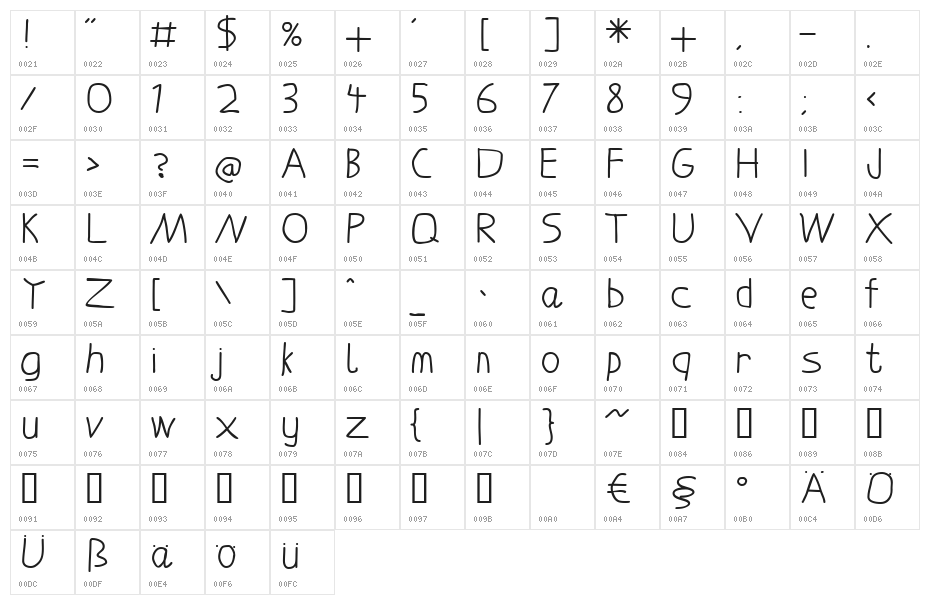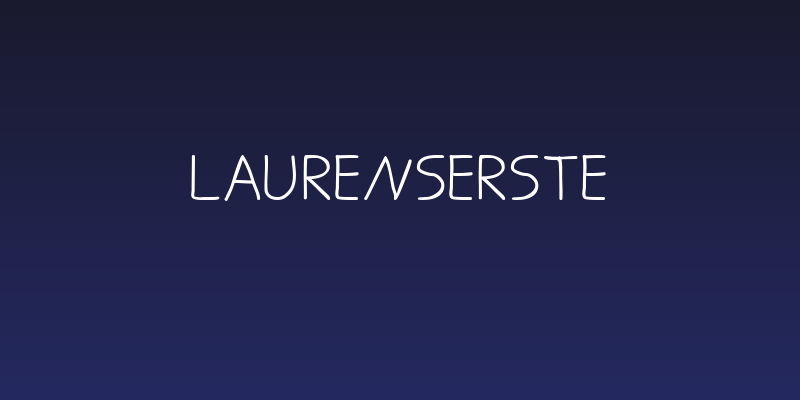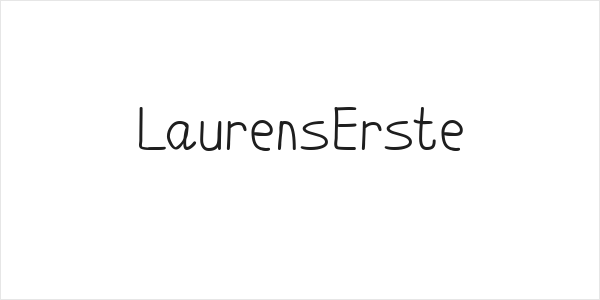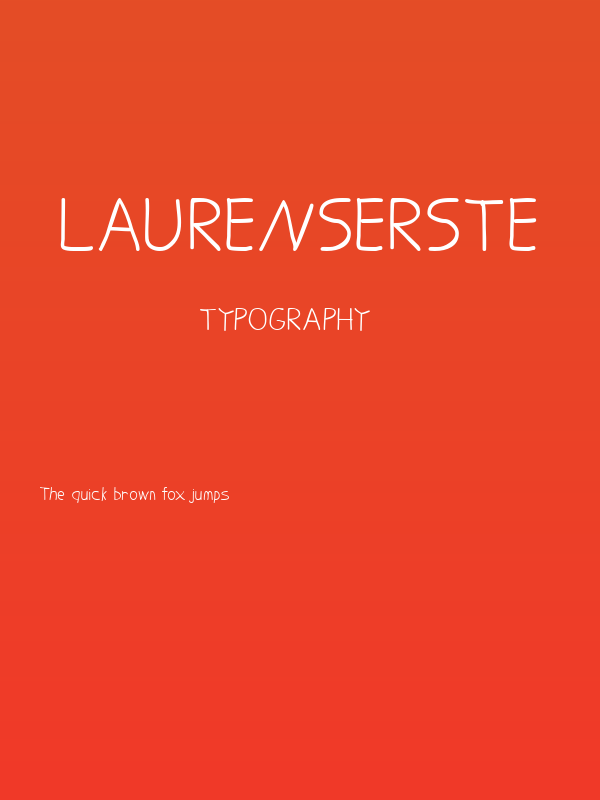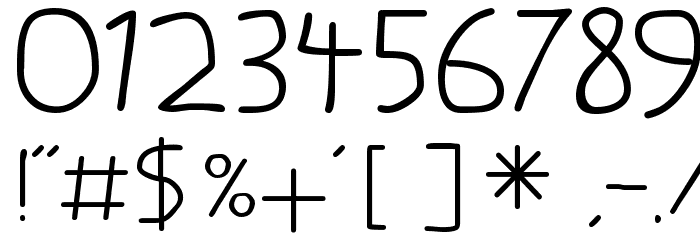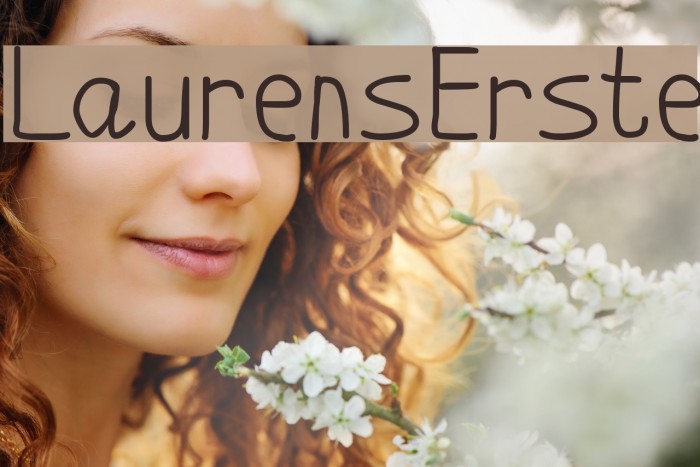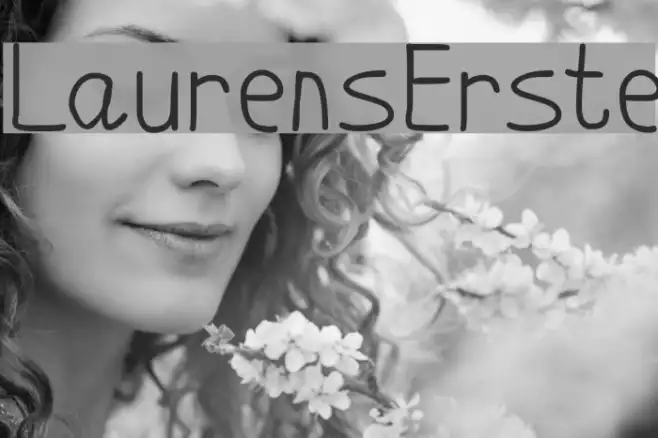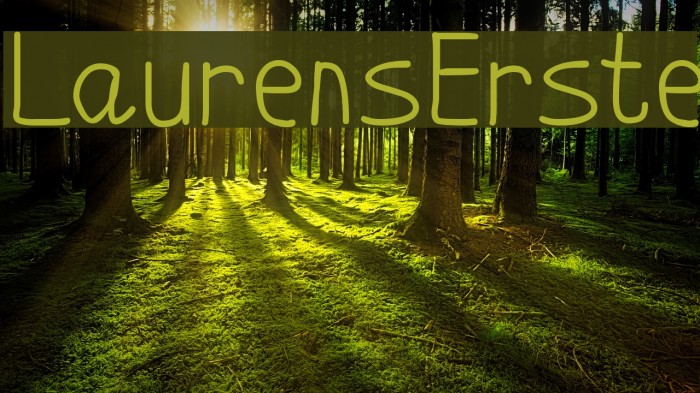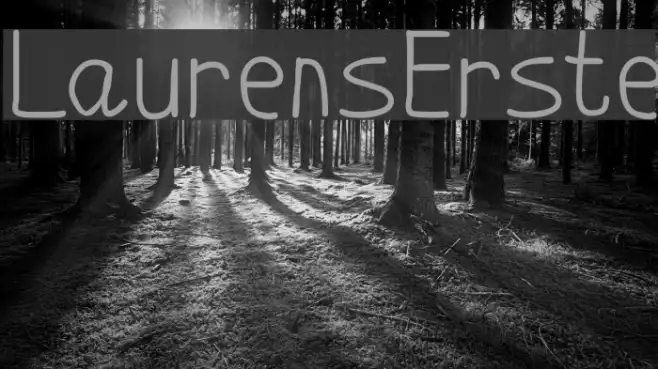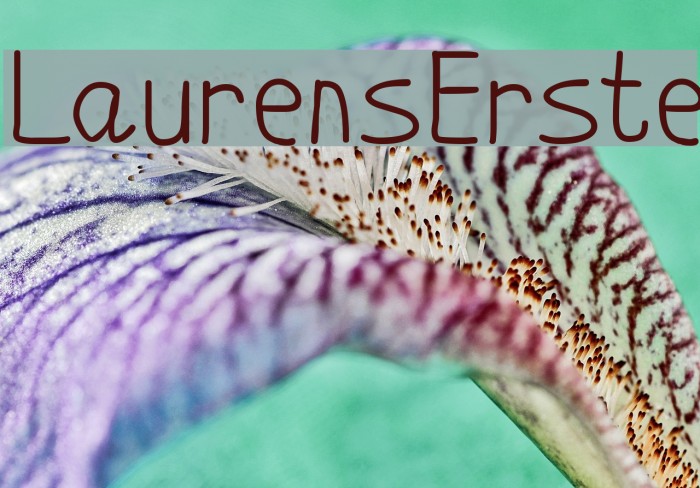
LaurensErste Font
LaurensErste Description
This font features a playful and informal handwritten style, characterized by its rounded and slightly irregular letterforms. The uppercase and lowercase letters maintain a consistent flow, with a casual yet legible appearance. The numerals and special characters complement the overall style, adding to its versatility. The font's organic curves and friendly demeanor make it suitable for projects that require a personal touch or a relaxed aesthetic. Its simplicity and charm are ideal for conveying warmth and approachability.
| Proposed Projects | Ideal for greeting cards, children's books, casual branding, and social media graphics. |